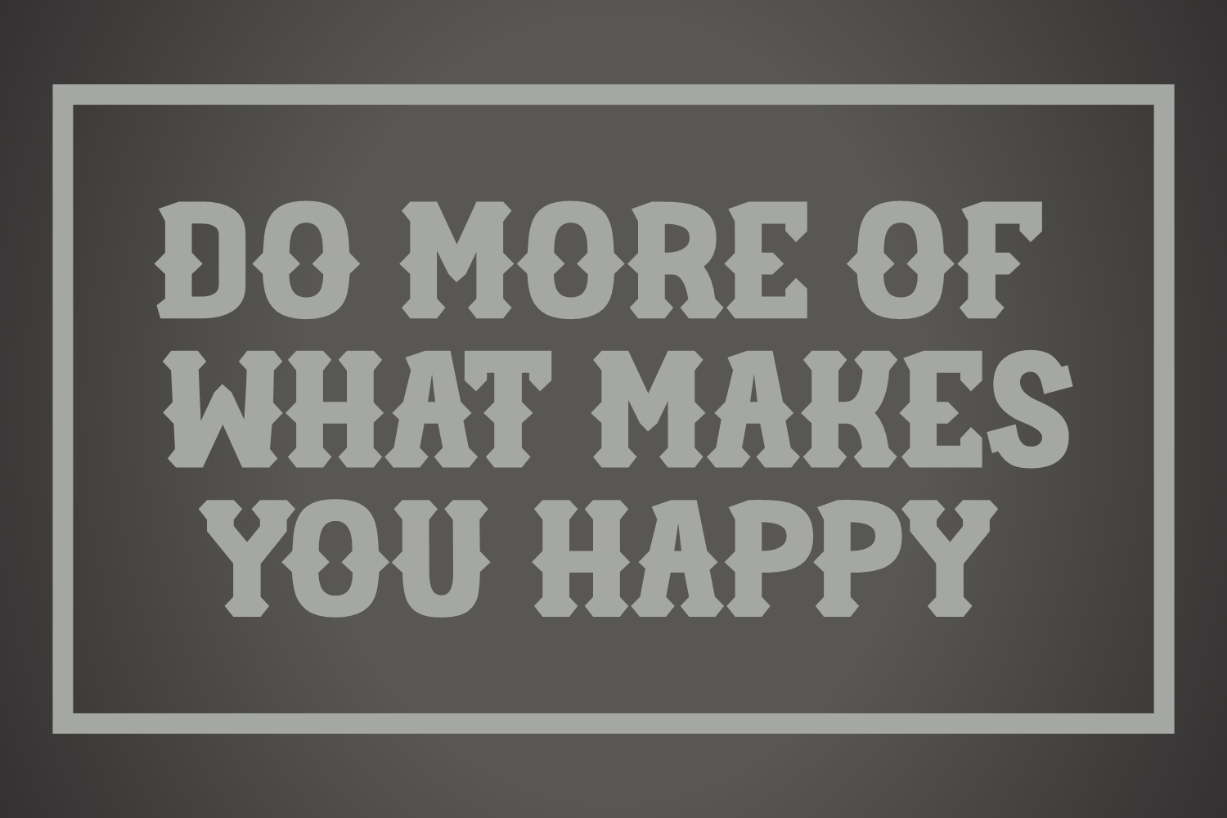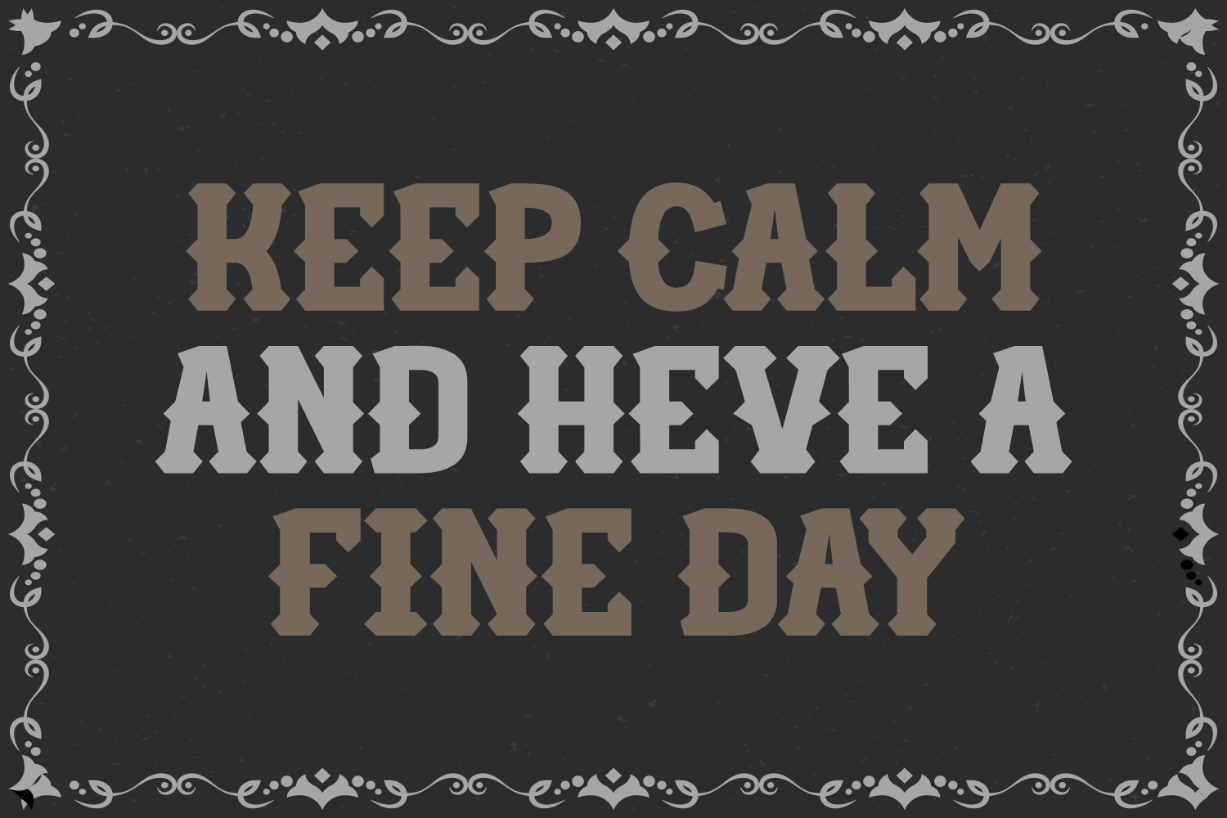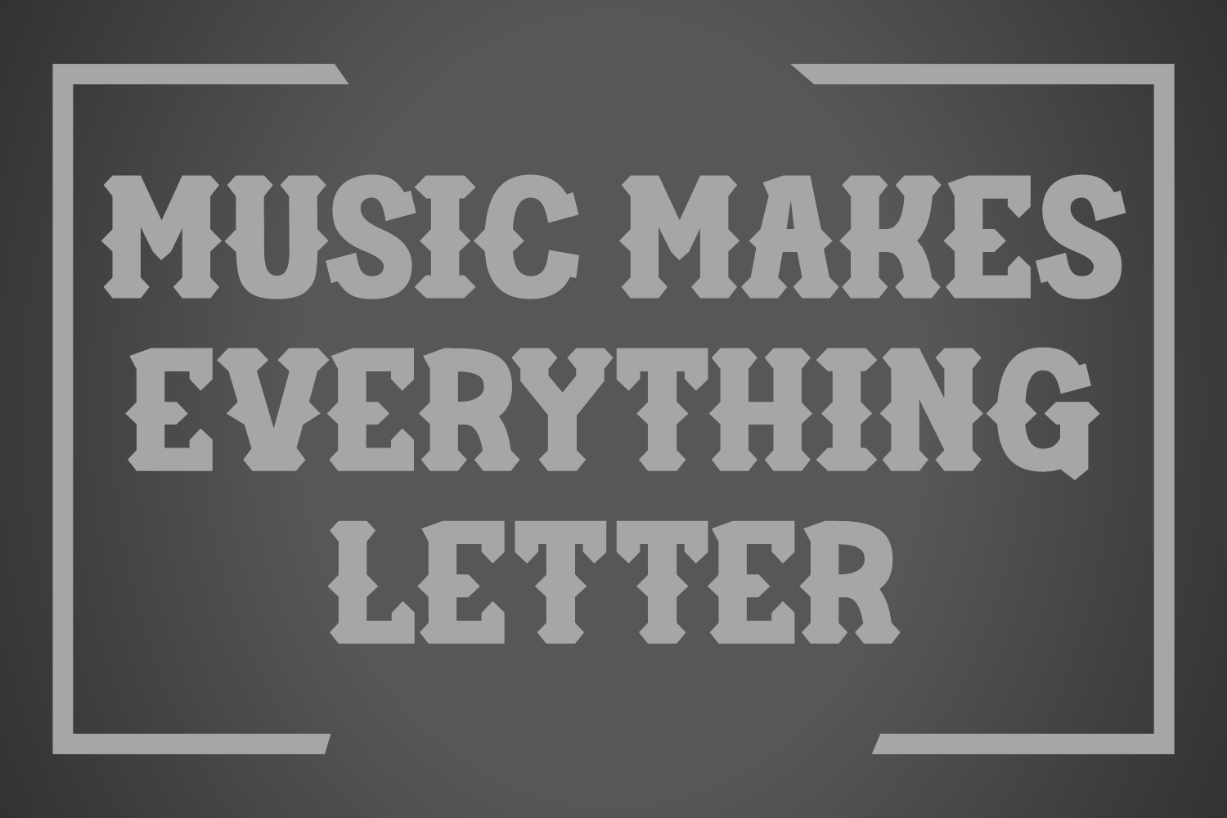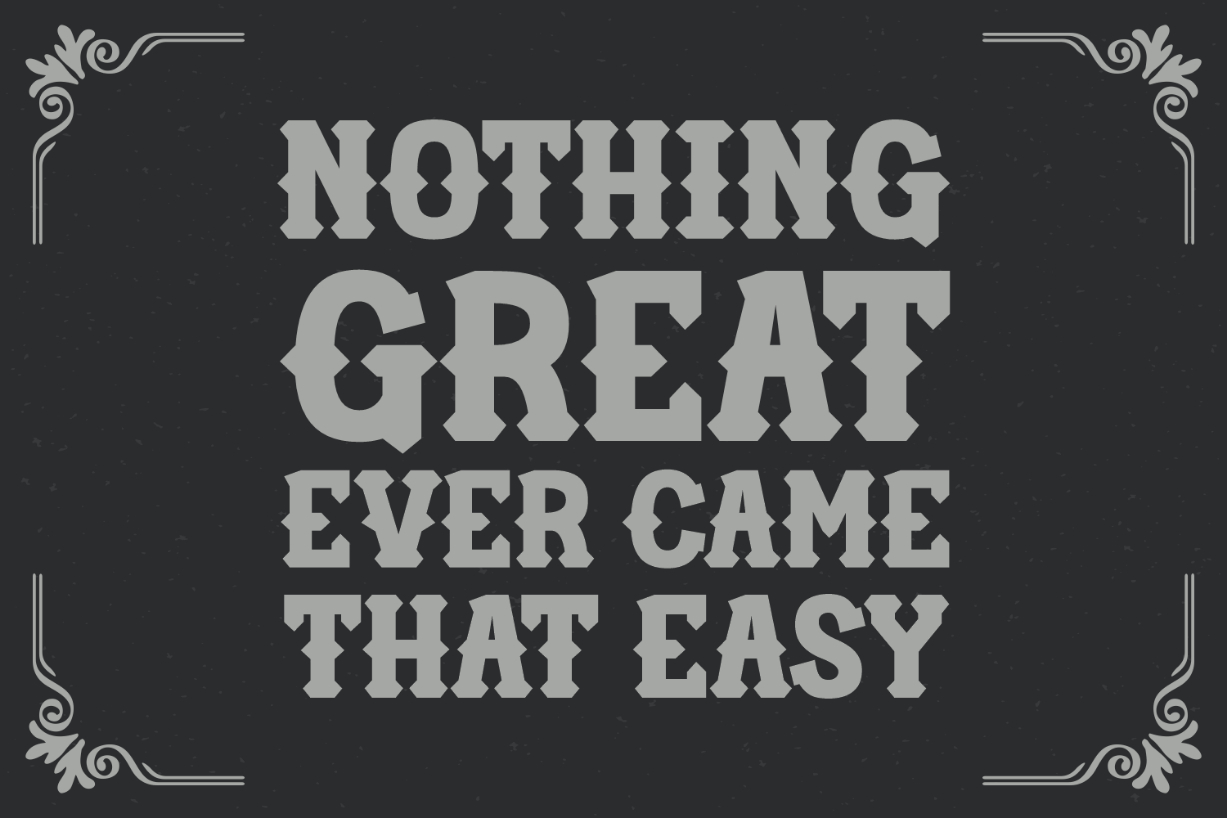
Gabemale Font
About Gabemale Font
Gabemale is a thick, eye-catching blackletter font. The bold look and versatile nature of this font make it an excellent asset to your design library. You can use it for various projects such as t-shirts, posters, banners, websites, titles, product packaging, signage, and more.